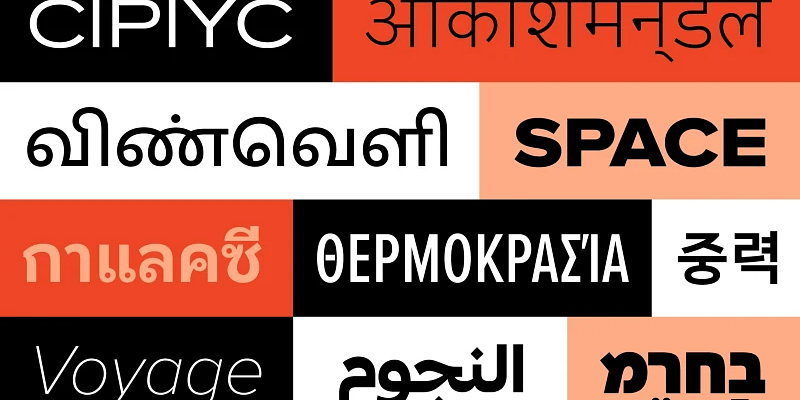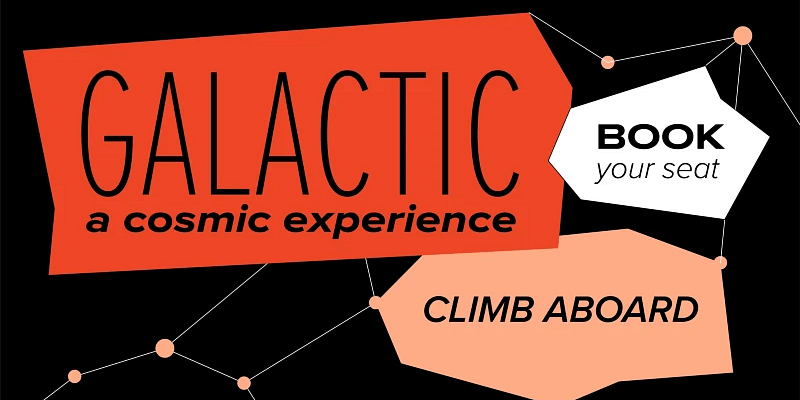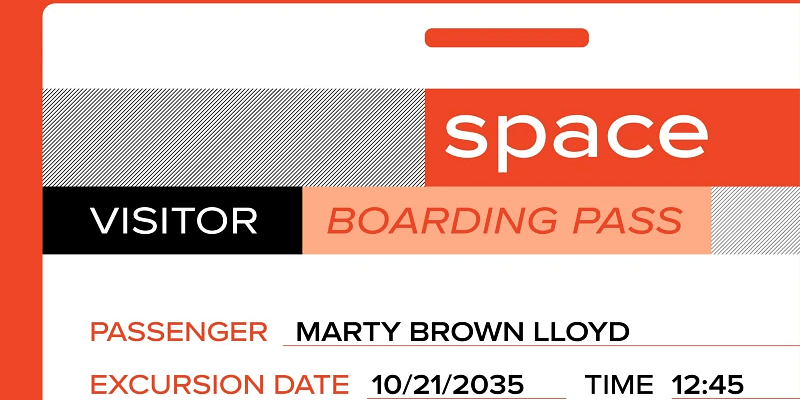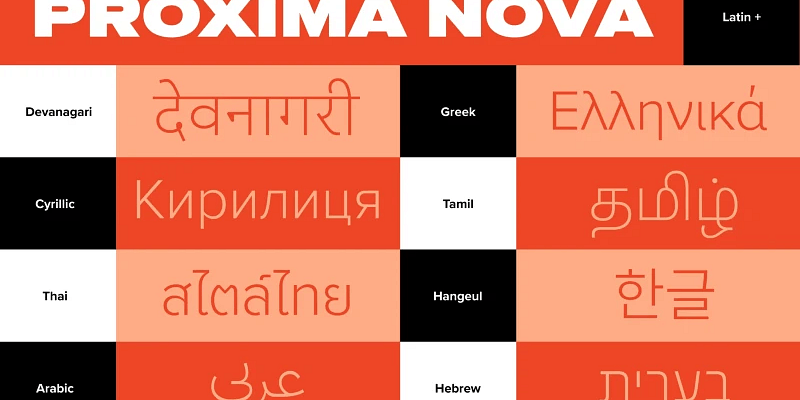
Proxima Nova (2005) bridges the gap between typefaces like Futura and Akzidenz Grotesk. The result is a hybrid that combines modern proportions with a geometric appearance. Mark originally released it in 1994 as Proxima Sans (now discontinued) with a basic character set in three weights (Regular, Medium, and Black) with italics.
Mark expanded the original six fonts into a full-featured and versatile family of 42 fonts (seven weights in three widths with italics). He continually updated and expanded Proxima Nova since 2005, more than doubling the character set from 700 in its initial release to 1453 characters in the latest version. Additions have included support for Greek, Cyrillic, and Vietnamese, numerous currency symbols, wide and extra wide widths, as well as a Medium weight for all five widths and italics, bringing the total number of fonts in the family to 80.
Since the mid-2010s, Proxima Nova has become the most popular commercial font on the web, used on hundreds of thousands of websites around the world. Proxima Nova is also available in Arabic, Thai, Devanagari, Hangeul, Tamil, and Hebrew.